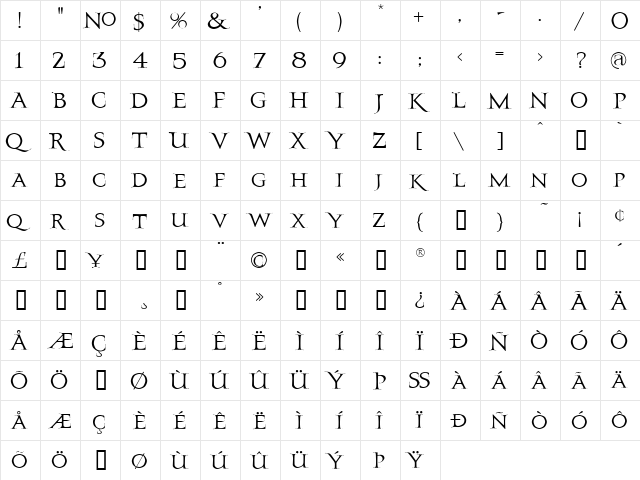
LHF Larcher Roman BETA Regular
Design Context for LHF Larcher Roman BETA Typeface
LHF Larcher Roman BETA takes a measured approach to typography — its balanced proportions and neutral character make it a reliable workhorse for both digital and print work.